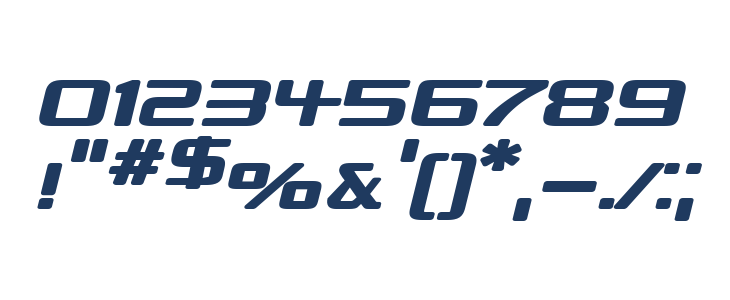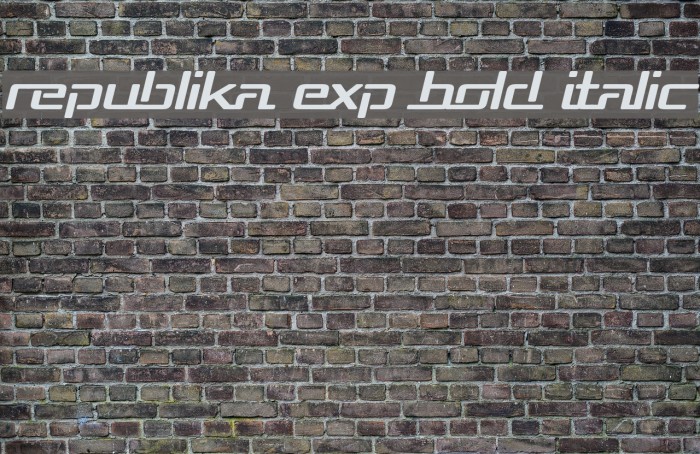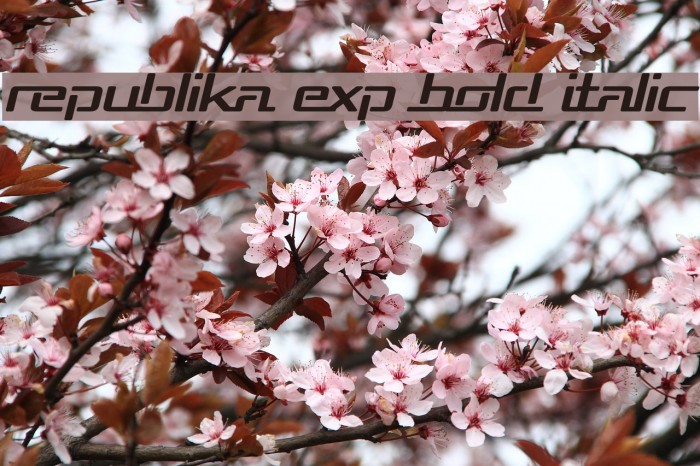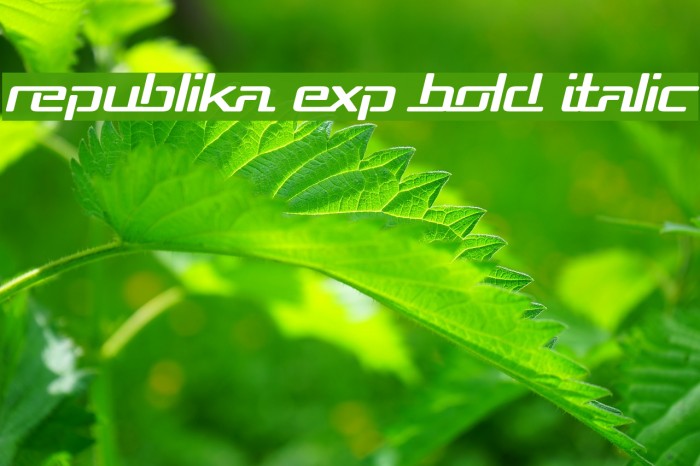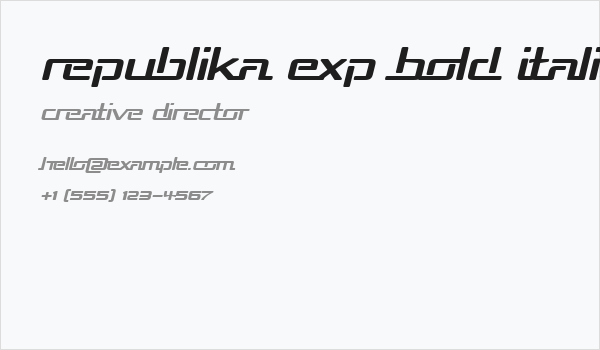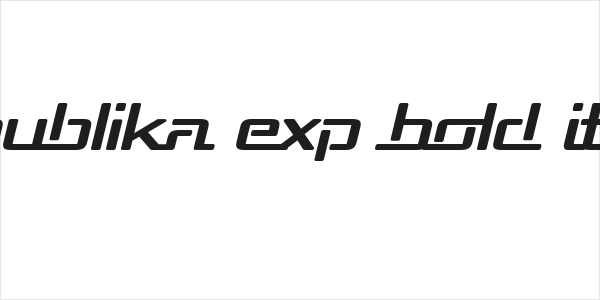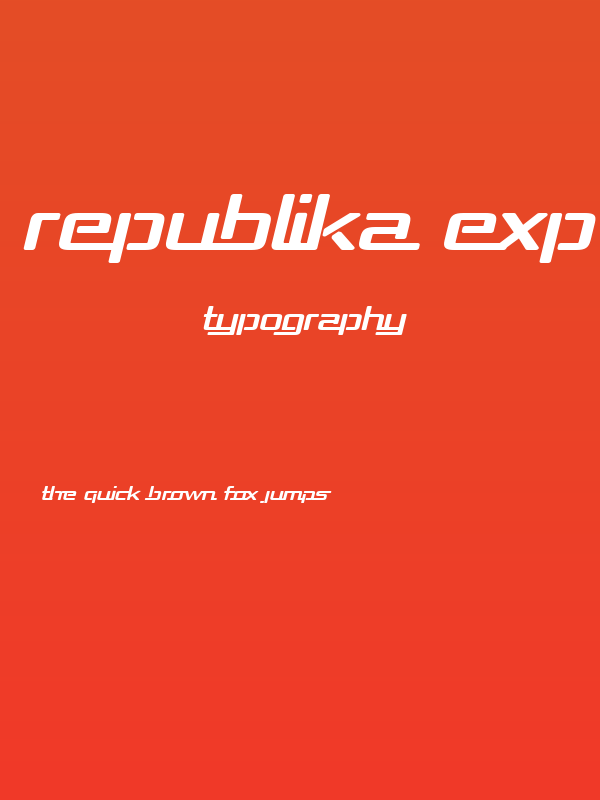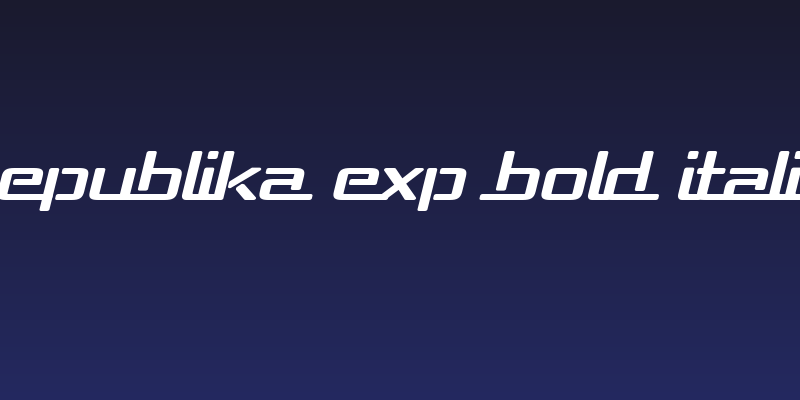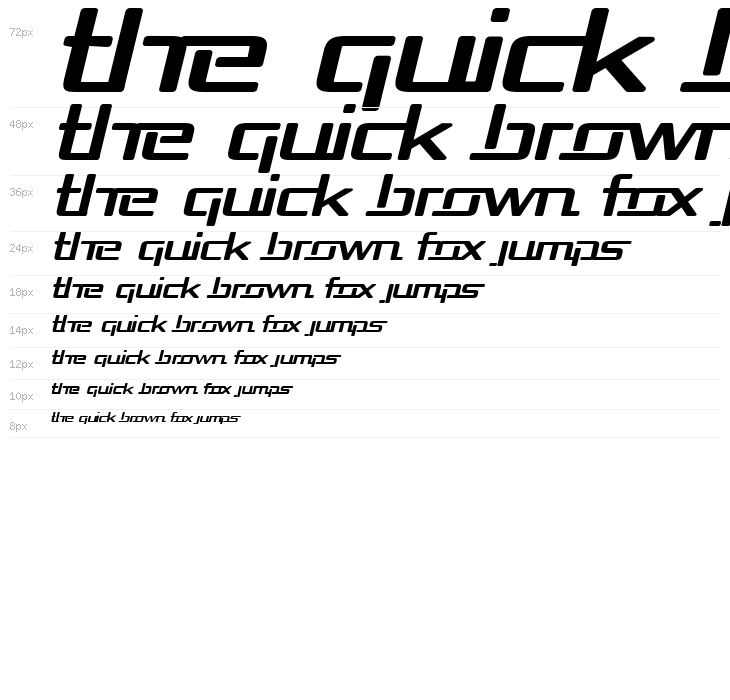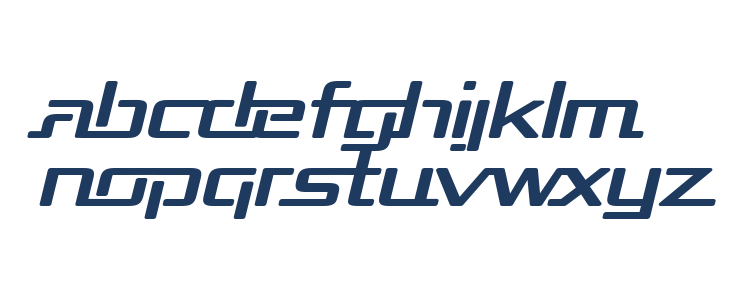
Republika Exp Bold Italic Font
Republika Exp Bold Italic Description
This font features a bold and italicized style with a futuristic and dynamic appearance. The characters are slightly slanted, giving a sense of motion and speed. The strokes are thick and consistent, providing a strong visual impact. The design is clean with a modern touch, making it suitable for contemporary projects. The uppercase and lowercase letters maintain a uniform look, while the numerals and special characters are designed to complement the overall aesthetic. The font's geometric shapes and sharp angles contribute to its distinctive and assertive personality.
| Proposed Projects | Ideal for technology branding, sports team logos, modern advertising, and dynamic poster designs. |